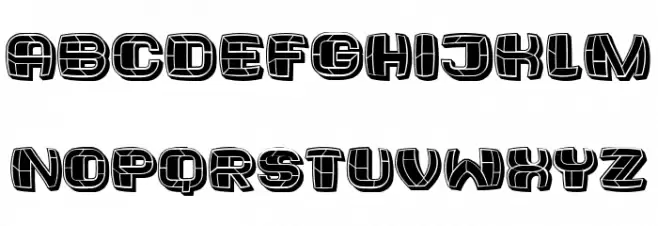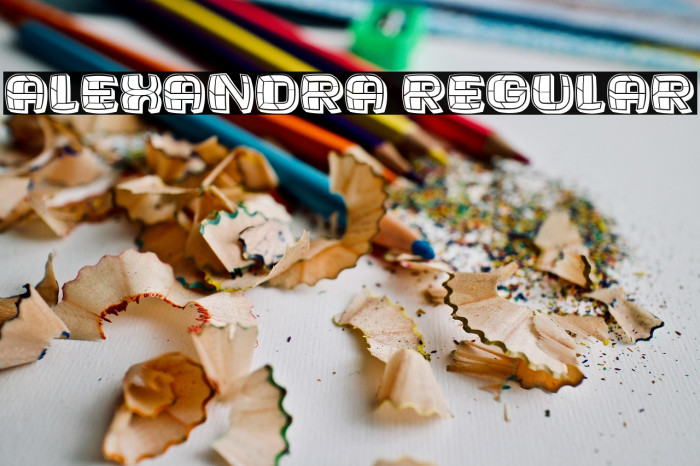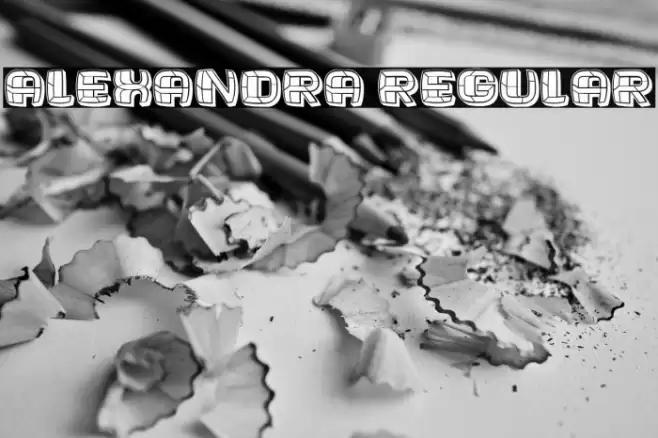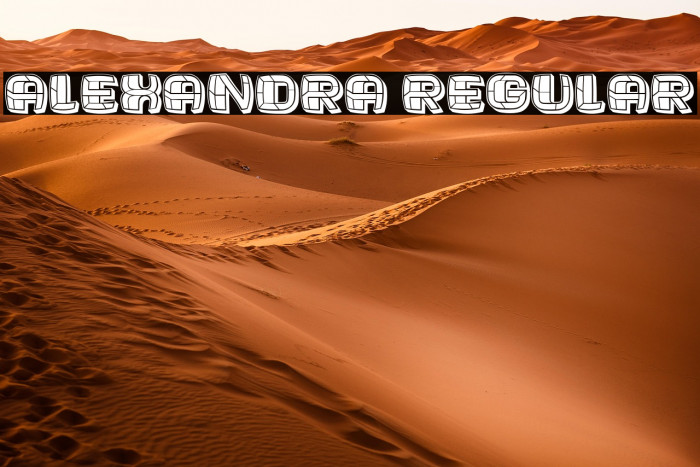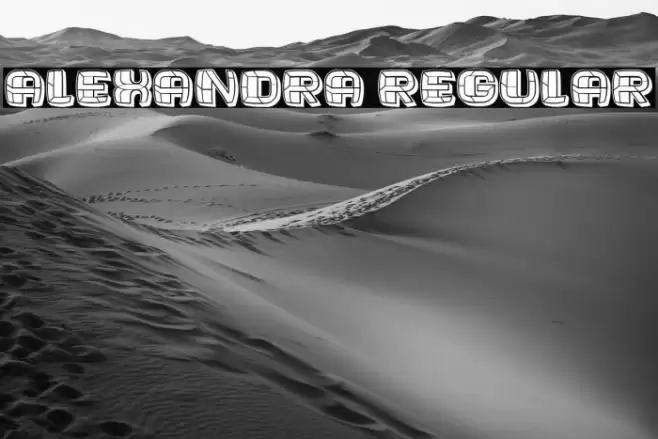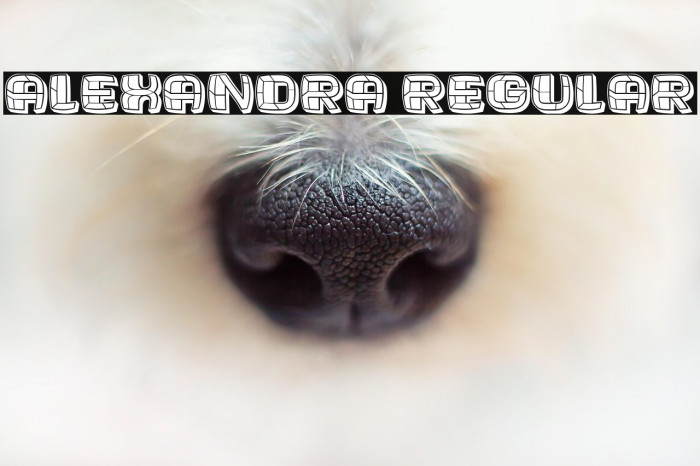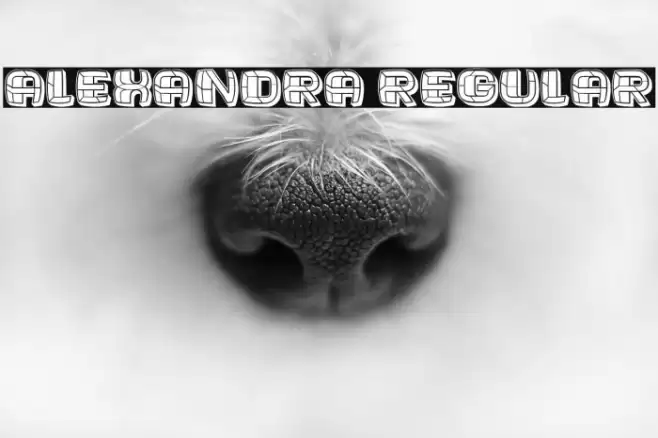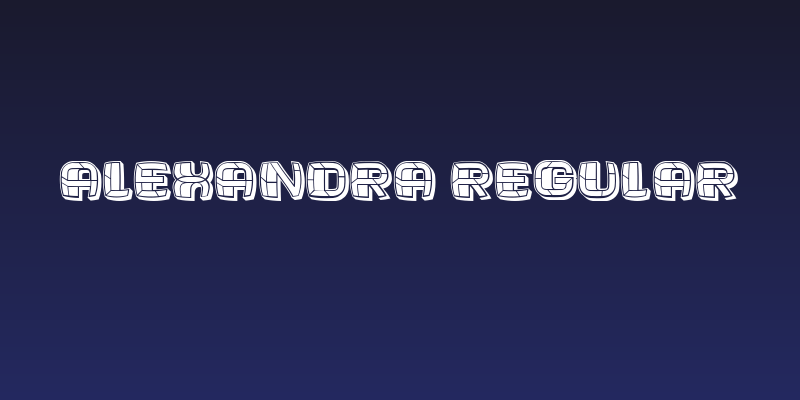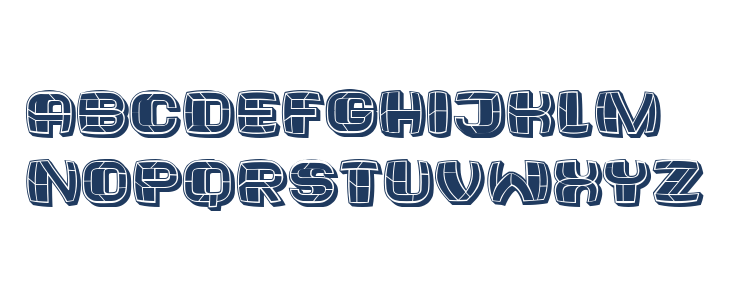
Alexandra Regular Font
Alexandra Regular Description
This font features a bold, geometric design with a three-dimensional effect. The characters are outlined with a thick black border, creating a striking contrast against the white interior. The letters are uppercase, with a uniform height and width, giving them a blocky appearance. The design incorporates a unique pattern of lines within each character, adding depth and visual interest. This font is highly decorative and stands out due to its intricate detailing and strong presence.
| Proposed Projects | Ideal for eye-catching headlines, posters, logos, and branding materials that require a strong visual impact. |